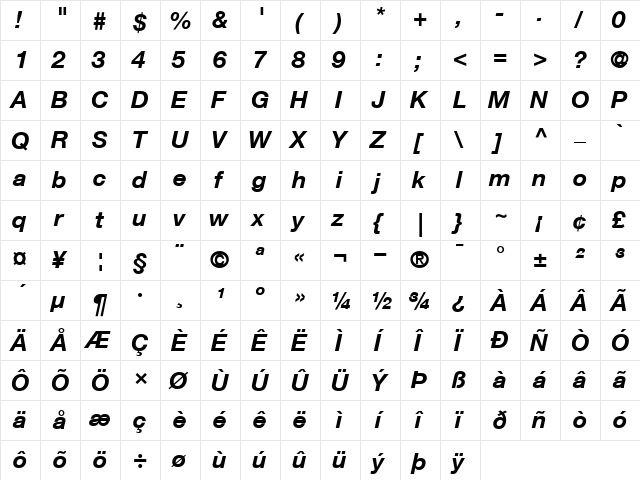
Helvetica76 BoldItalic Font Preview
Helvetica76 BoldItalic
Helvetica76 BoldItalic Font Details
Design Context for Helvetica76 Typeface
Helvetica76 takes a measured approach to typography — its balanced proportions and neutral character make it a reliable workhorse for both digital and print work. Its italic angle brings a sense of urgency and motion to the letterforms. The heavy weight commands attention and anchors typographic hierarchies.
Pro Tip: Use Helvetica76 for emphasis, pull quotes, and subheadings where its slanted energy can add rhythm to the layout.